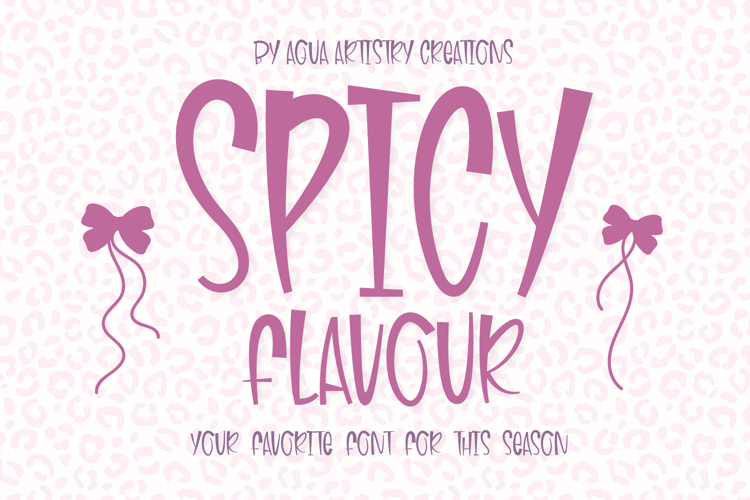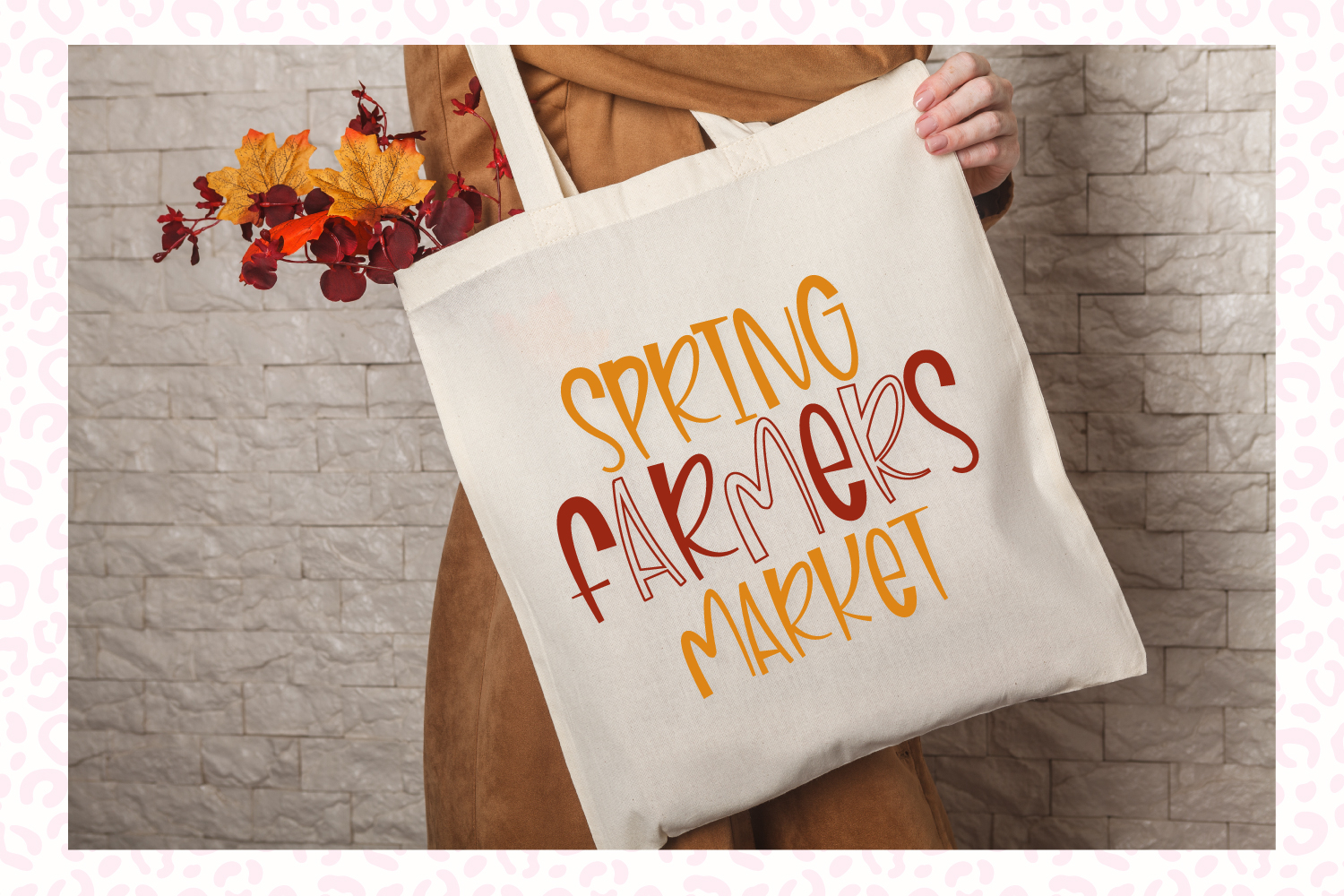
SPICY FLAVOUR Spring Favorite Display Font
🌸 Spicy Flavour | A Vibrant Hand-Drawn Spring Font
Infuse your designs with the zest of a new season! Spicy Flavour is a premium, hand-drawn font designed to capture the organic energy and playful spirit of springtime. With its natural stroke variations and authentic "pen-to-paper" feel, it’s the perfect choice for creators who want to move away from rigid, digital looks and toward something more human and heartfelt.
• Authentic Hand-Drawn Feel: Each character is uniquely crafted to maintain a consistent rhythm while celebrating natural imperfections.
• Perfect for Spring Projects: Ideal for garden labels, floral greeting cards, eco-friendly branding, spring sale posters, and social media quotes.
• Crisp & Scalable: Clean vector-friendly outlines ensure your text looks sharp whether it’s on a tiny business card or a large outdoor banner.
Spicy Flavour isn't just a font—it's the secret ingredient your spring projects have been waiting for. Give your typography a touch of warmth and a dash of spice today!